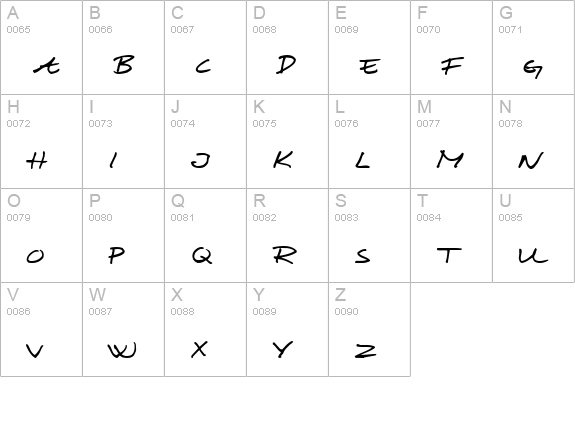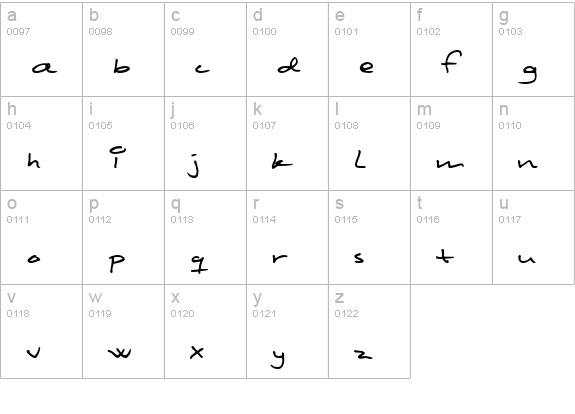
Scribbled Monkey Font Details
Introducing the captivating Scribbled Monkey font, a whimsical and playful typeface that will bring life and character to any creative project. This font's quirky hand-drawn style is reminiscent of a mischievous monkey's doodles, adding a touch of fun and uniqueness to your designs. With its uneven strokes and charming imperfections, Scribbled Monkey captures the essence of spontaneity and creativity. Each letter feels like it was playfully scribbled onto the page, giving your text a sense of childlike wonder and excitement. Whether you're designing a children's book, crafting invitations to a playful event, or creating a whimsical logo, Scribbled Monkey is the perfect choice to add a touch of charm and personality. Its versatility allows it to seamlessly adapt to a wide range of projects, from digital to print, ensuring that your message stands out with its distinctive style. And the best part? Scribbled Monkey is available completely free of charge! Yes, you read that right. This incredible typeface can be freely downloaded at FontsMarket.com, making it accessible to everyone, regardless of budget constraints. Now, you can unleash your creativity without worrying about additional expenses. So why wait? Don't miss out on the opportunity to add a playful twist to your designs with Scribbled Monkey. Download it today and let your imagination run wild with this charming and delightful font.